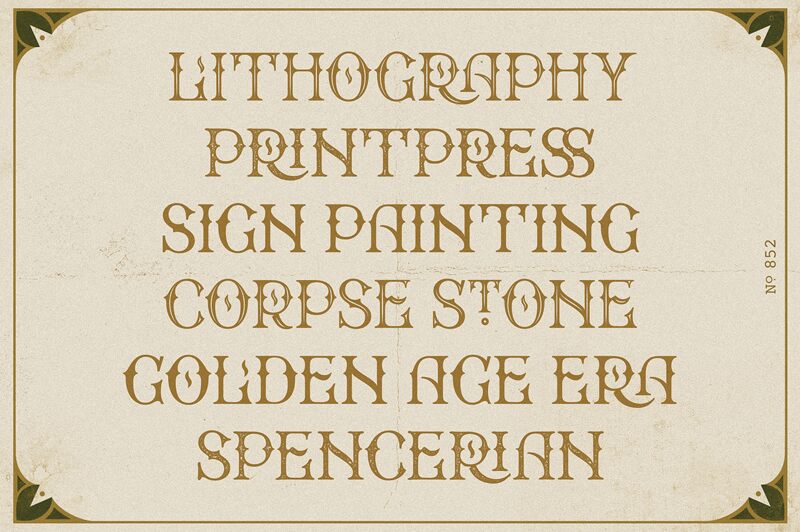
Bradford is inspired by the old-fashioned display, traditional sign-writing and some ancient packaging in early 1900 that used primarily to create the ephemera of everyday life, the ubiquitous letter-heads, trade cards, advertising circulars and bills that serve an immediate purpose.
Bradford